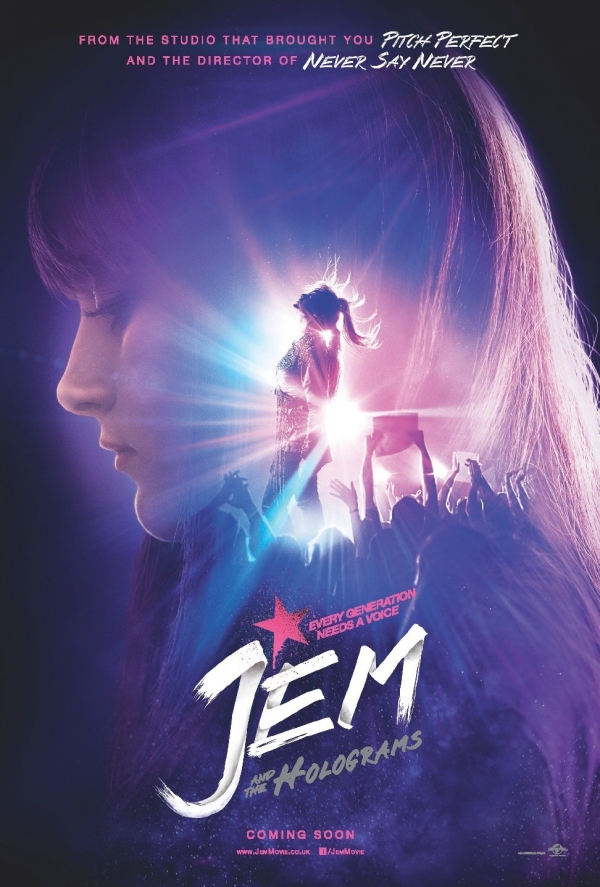
Jem and the Holograms Font
FantasyJem and the Holograms is a 2015 American musical fantasy film about a young singer who becomes a global superstar with her three sisters and creates a rock band called Jem and the Holograms. It is based on the 1980s animated television series of the same name.
The movie title "Jem and the Holograms" on the poster is designed based on a font similar to Isara by Gert Wiescher. This font is a coarse script designed with a marker, scanned, and meticulously digitized to preserve its natural and unrefined look. You can preview and buy the font here.